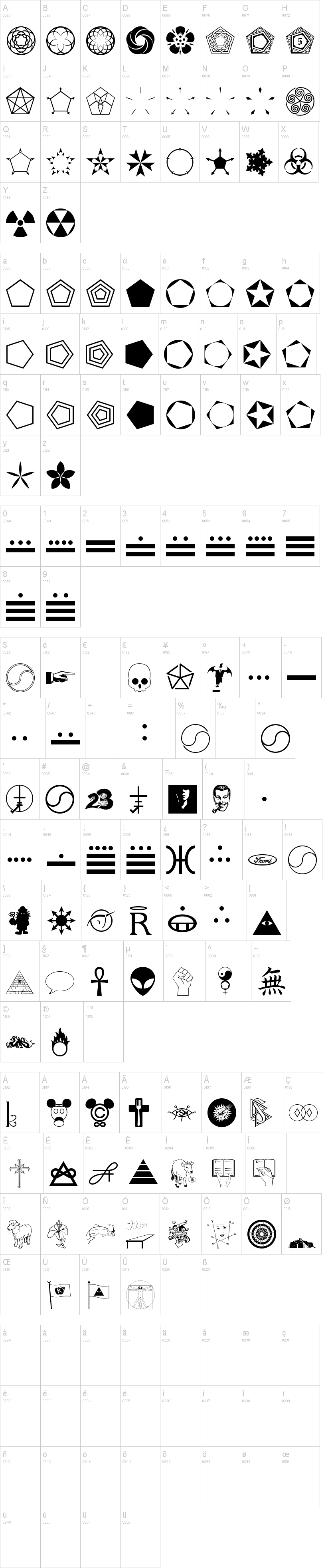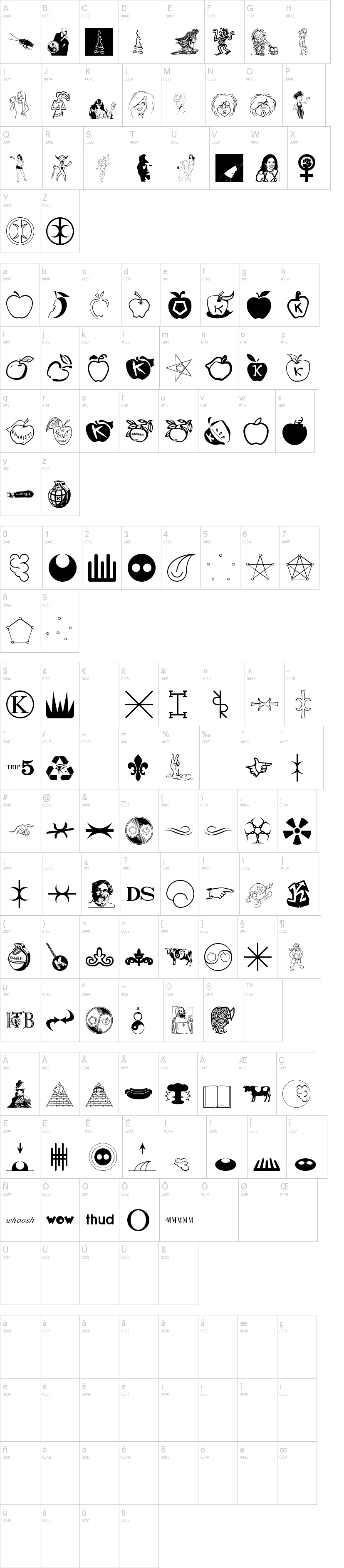
Two PostScript dingbat fonts.
Synaptyx: /apple-messiah /apple23 /dobbs /scrid /tgrr1 /tgrr2
/raw1 /raw2 /thornley1 /thornley2 /bomb-kallisti /wrecking-ball
/phelps /pkd /poee-ornate /syn-chao-line1 /syn-chao-line2
/hail-iron /norton /discordaman /mickey-gas /itb
/pyramid-apple /pyramid-eye /evil23
- OD: /sigil-eris /sigil-greyface /eris-mod /apple-mod
/apple-syn /poee-curve /trump-trout /apple-manilla /sacredfist
Nurbldoff: /grenade-k /grenade-kallisti /apple-nurbldoff /eris-back
/trump-eris /trump-joker /discordaman
- OD: /eris-nurbldoff /reinkarnation
Max Flax Beeblewax and/or (boing!) Cnoocy Mosque O'Witz:
- OD: /element-* /elem3d-* /day-* /ono-*
Episkopos Aloysius Thudthwacker (HyperDiscordia):
- OD: /psychohazard /memetically-active
ThoughtMaster Xy: OD: /futhark-erud /futhark-rah /futhark-ihpo
/futhark-sohro /futhark-xaos
Sayteen: /chao-cow
Fnord Issue 2: /fnordzine /samsara
Gimoz: /creature
ElStiko: OD: /poee-screen
Ben: OD: /eris-kali /kali-fist /kali-fume /kali-tongue
The Wise Book of Baloney (Baron von Hoopla): /apple-baloney
PrincipiaDiscordia.com: /eris-pdcom
The BobCo Fonts: /fleurdelis /atom - OD: /alien /bolt /eyeball
Mark Frauenfelder: OD: /eris-katasutra
Marc Perkel: OD: /reality
Sampo Syreeni: OD: /slash
alt.atheism: /ipu (The Invisible Pink Unicorn)
Mark Fox: OD: /death-to-art
Istarwyn: /eris-istarwyn
SpecialSpaz: /mib-bat
ONero: apple-papale
Erwan: /eris-saxowoman
Pyxelated: OD: /greyface-pyxel
DarknessWonder: OD: /eris-wonder
http://www.labor.iu.edu/organizeindiana/: OD: /fsm-fist
Church of Scientology: OD: /sci-cross /sci-ned /scientology
AnonMoos: /kajira-kef
Liz Vicious: /liz-skull
Meighan Desmond (from Xena, Warrior Princess): /eris-md
Joss Whedon: /fnord
Unknown: /unicorns - OD: /fsm-fish /fsm-cross
/eris-neolithic
Several images are taken from Principia Discordia (also copyright free/public domain).
the other anonymous: everything else
Anything credited as "OD" (original design) was revised by toa.